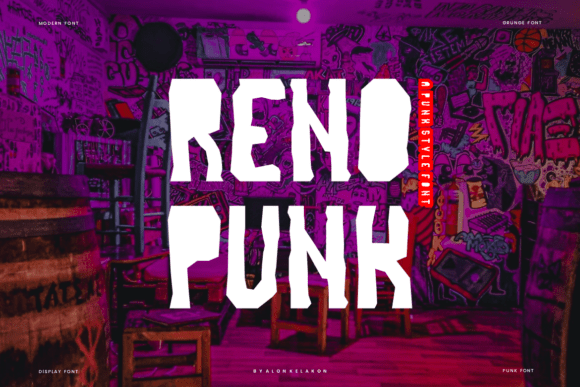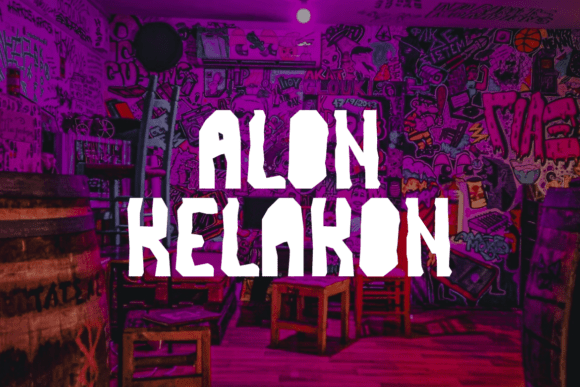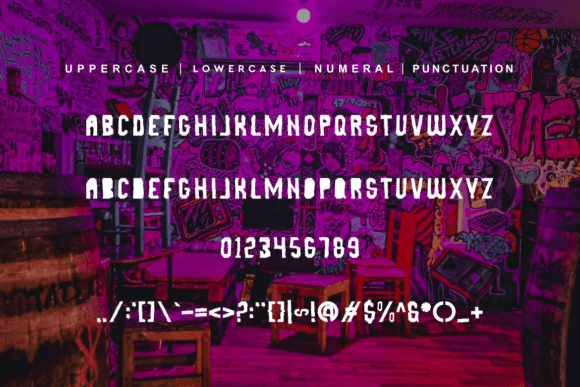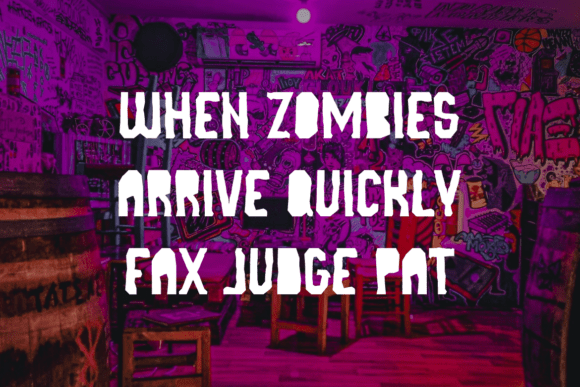
Reno Punk Font
About the Reno Punk Font
Add a touch of class to your work with the Reno Punk Font, a truly exceptional typeface. Reno Punk is a unique and interesting decorative font. A little bit quirky, this font looks incredibly adept on a wide variety of contexts!
Reno Punk’s quirky nature makes it ideal for headlines, short slogans, posters, and branding elements where a bold, attention-grabbing statement is needed. Its decorative style, however, isn’t well-suited for body text or UI elements requiring high readability. Long paragraphs set in Reno Punk would be difficult to read.
The font possesses a rebellious, energetic personality. It would be a strong choice for brands targeting a younger demographic or those with a punk, rockabilly, or vintage-inspired aesthetic.
To balance its strong personality, pair Reno Punk with a clean sans-serif like Montserrat for body copy or a classic serif like Garamond for a touch of sophistication. Consider a simpler geometric sans-serif for a more modern feel, or a playful script for added texture (but use sparingly).
Reno Punk Font Usage Examples
Reno Punk Font Example